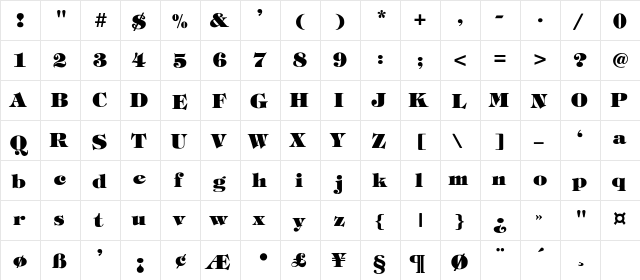
Dormeua-Heavy-Bold Regular Font Preview
Dormeua-Heavy-Bold Regular
Dormeua-Heavy-Bold Regular Font Details
Design Context for Dormeua-Heavy-Bold Typeface
Dormeua-Heavy-Bold offers clean, dependable letterforms without strong stylistic allegiance, making it a practical choice for designers who need flexibility. Its bold stroke weight gives it real presence on the page.